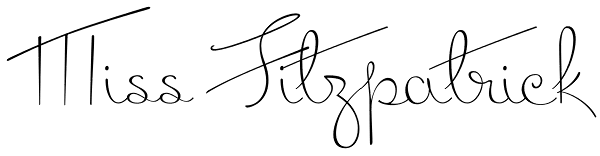
Miss Fitzpatrick
The Charles Bluemlein Script Collection is an intriguing reminder of the heady days of hand lettering and calligraphy in the United States. From the early 1930s through World War II, there were about 200 professional hand letterers working in New...